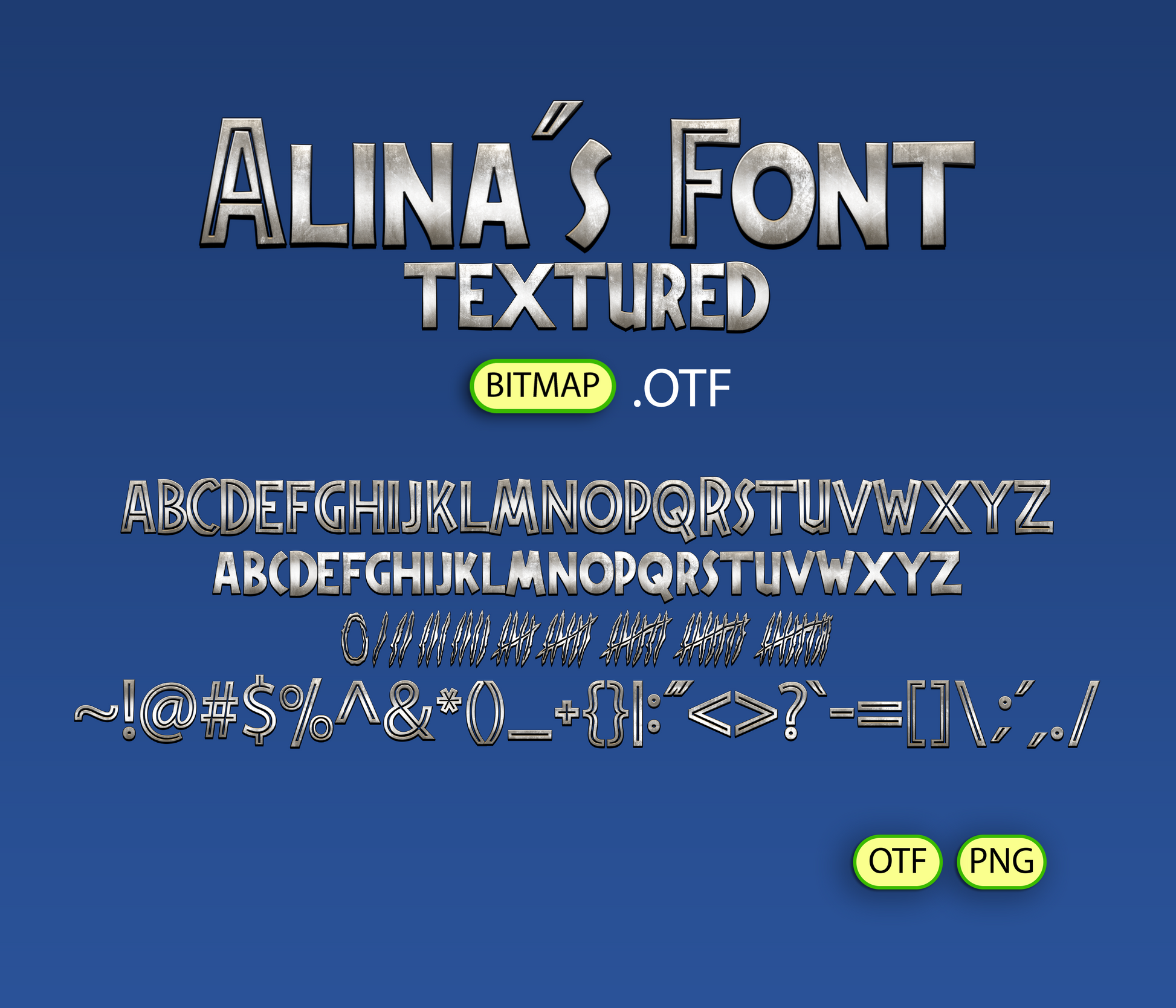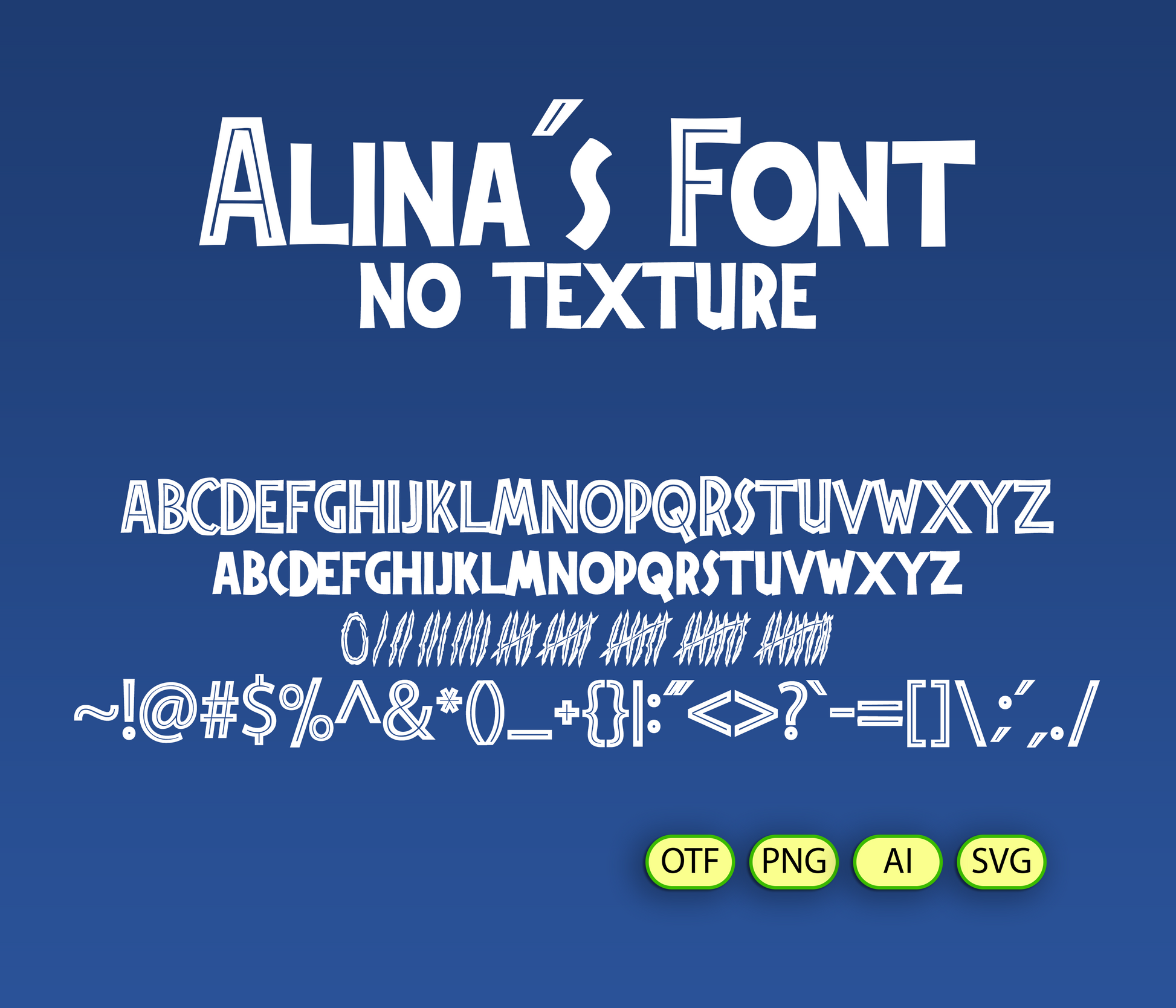
Dinosaur Era: Rebirth Font Textured
Dinosaur Era: Rebirth Font
Step into the thrilling world of prehistoric adventure with our Dinosaur Era: Rebirth font, capturing the essence of ancient beasts in a modern world. Perfect for paleontology enthusiasts, event organizers, and designers, this font brings the dynamic, primal spirit of these magnificent creatures to your projects. Create prehistoric-themed materials, merchandise, or digital content with the raw energy of these ancient titans.
Our Dinosaur Era: Rebirth font features bold, rugged lines and powerful characters reflecting the untamed world of these prehistoric giants. Ideal for:
- Event Promotions: Create awe-inspiring invites, posters, and banners for dinosaur exhibits, museum events, and themed parties that capture the thrill of prehistoric adventure.
- Merchandise Design: Perfect for t-shirts, posters, and accessories that showcase the power and majesty of ancient reptiles.
- Digital Media: Enhance websites, blogs, and social media with dynamic headers and graphics that express the excitement of prehistoric discovery.
- Educational Content: Add authentic flair to dinosaur guides, museum materials, and paleontology-themed projects.
- Personal Projects: Bring prehistoric excitement to scrapbooking, DIY crafts, and home decor inspired by the world of ancient beasts.
Our font pays tribute to the beloved world of prehistoric adventure, empowering your designs with its primal and thrilling spirit. Whether crafting promotional materials, designing merchandise, or adding a dynamic touch to personal projects, this font communicates the bold essence of these ancient creatures. Ready to inject prehistoric excitement into your creations? This font is your key to exciting, impactful design.